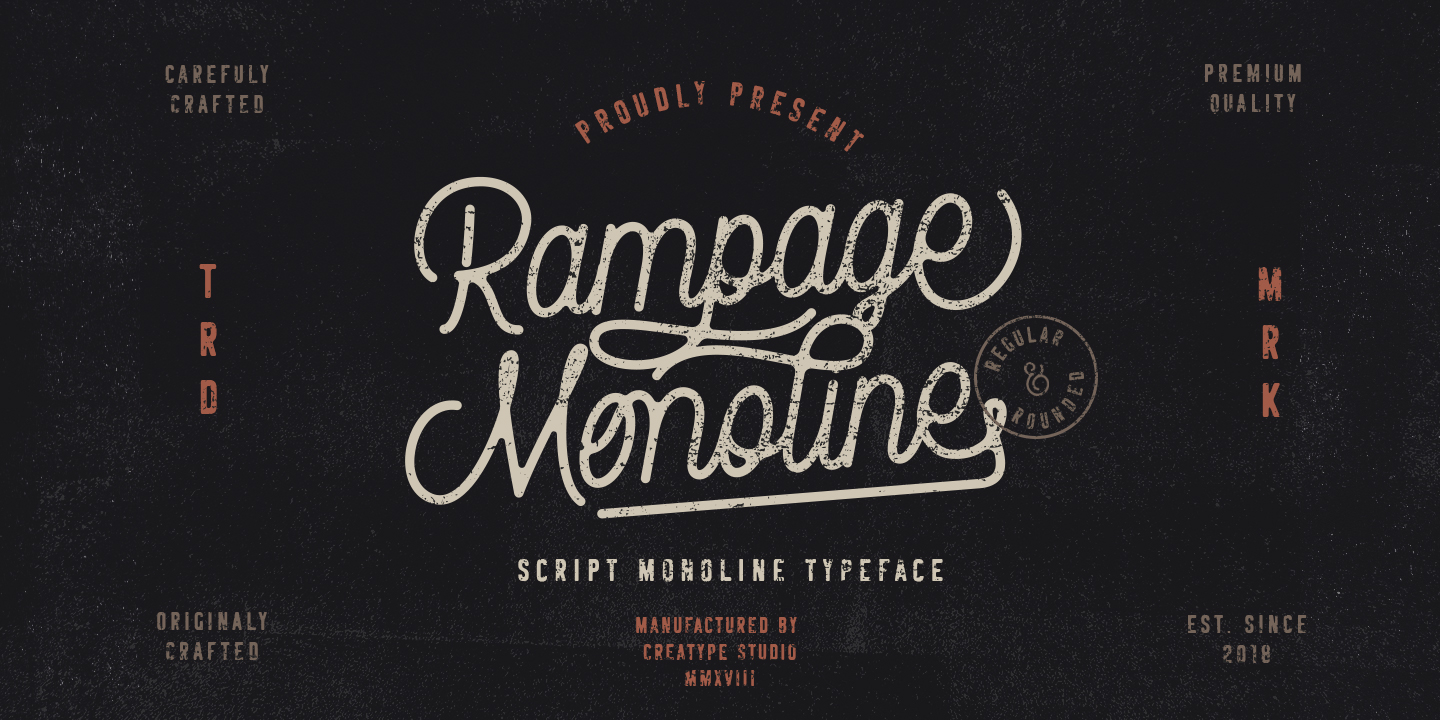
Rampage Monoline Font Free Download – A Bold & Playful Script for Energetic Branding
Looking for a font that combines retro charm with modern energy? Rampage Monoline Font Free Download delivers a thick, flowing script perfect for vintage-inspired logos, product packaging, music posters, and any project needing bold, handcrafted typography. Its consistent stroke width and lively curves create dynamic visual impact.
Why Choose Rampage Monoline Font?
Rampage Monoline Font Free Download stands out with:
Smooth monoline strokes for perfect consistency
Retro 70s vibe with modern readability
Full set of swashes & alternates for custom styling
Excellent for branding and merchandise
Rampage Monoline Font Free Download – Vintage Meets Vibrant
Power up your designs with this versatile script for:
Craft beverage labels & food packaging
Music festival posters & band merch
Surf/skate brands & apparel design
Vintage signage & tattoo lettering
Designer Tip: Combine with halftone patterns and bright gradients for extra retro pop!
(Typography Tip: Use all-caps with connecting letters for maximum flow!)